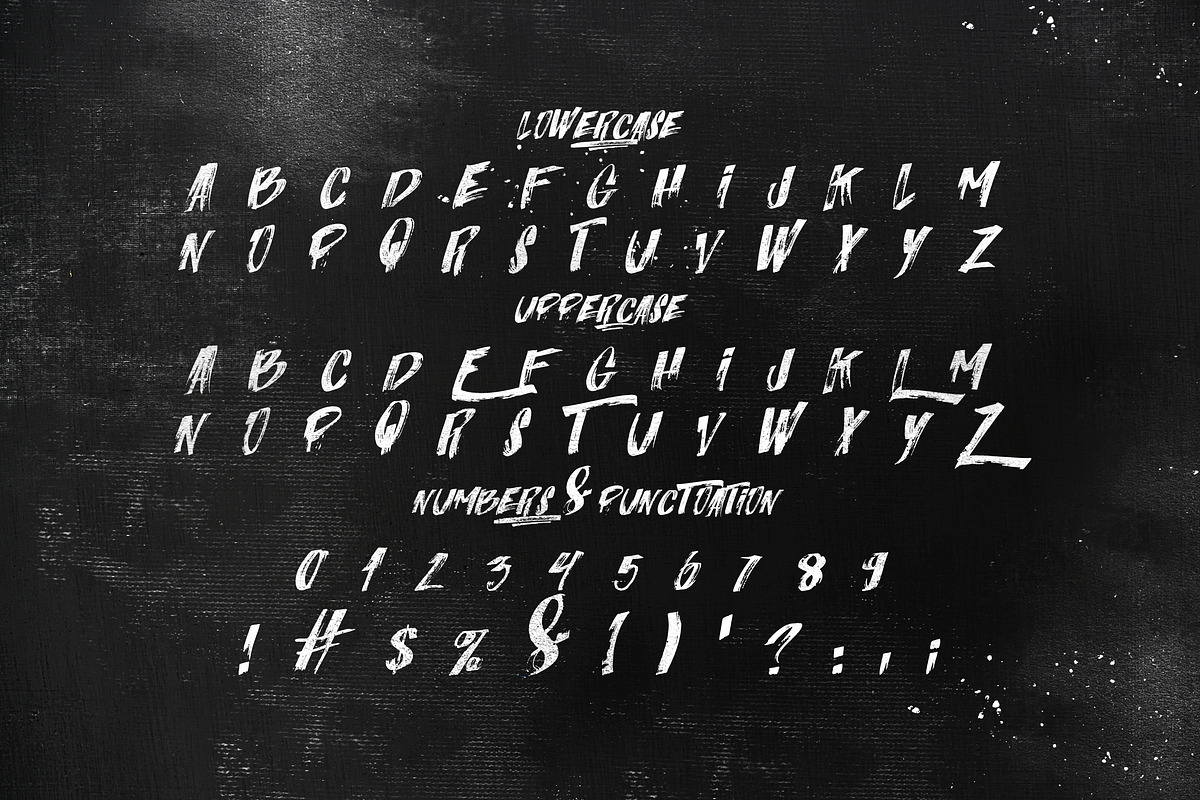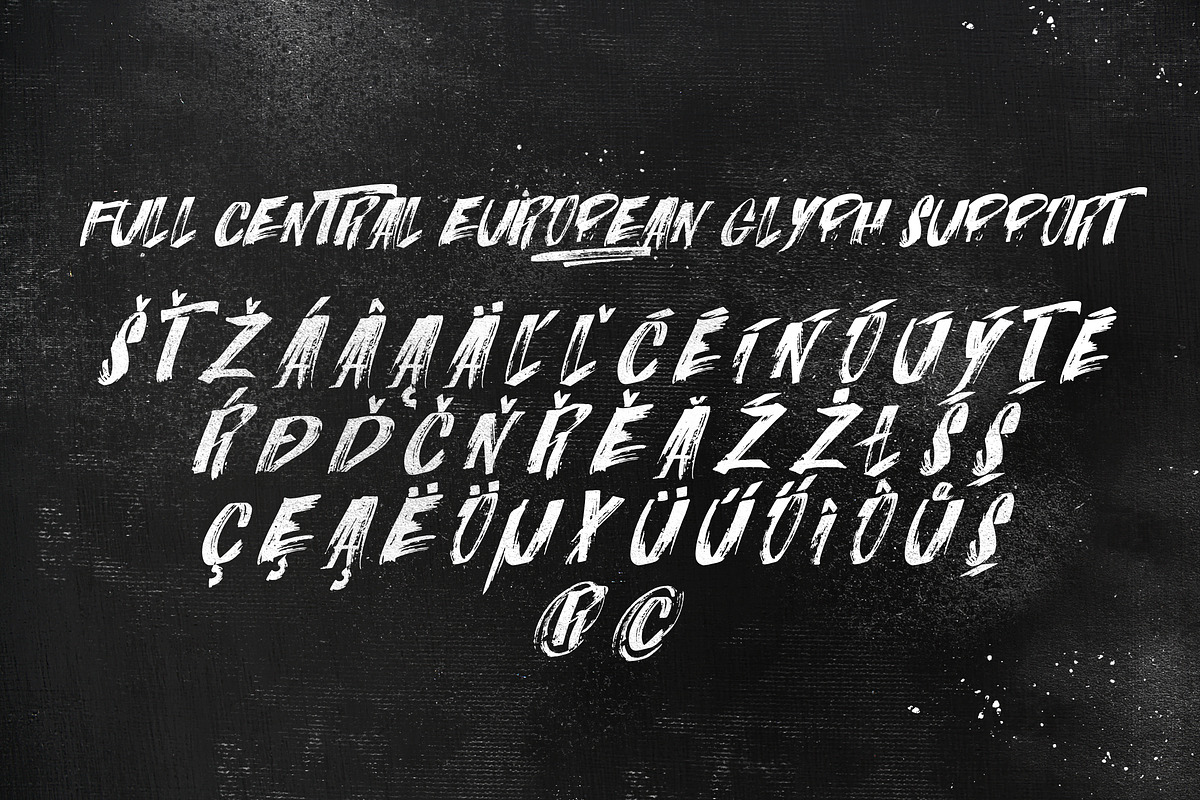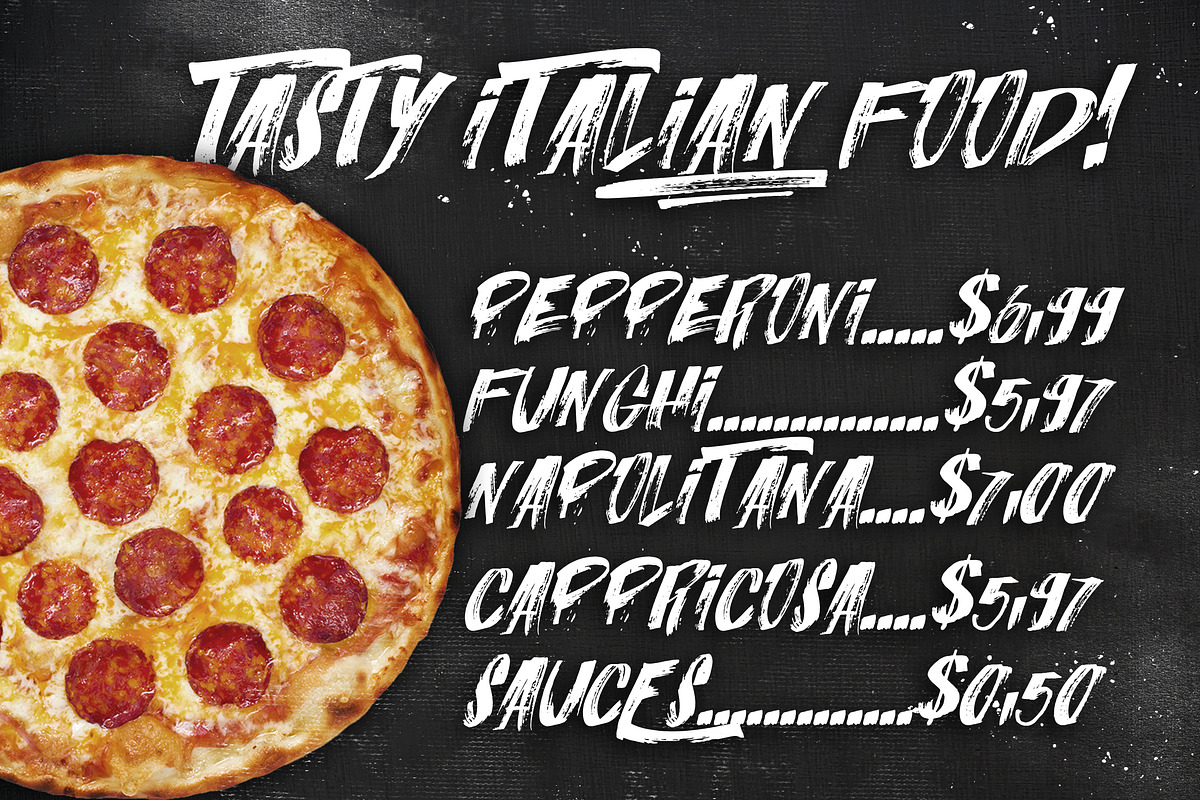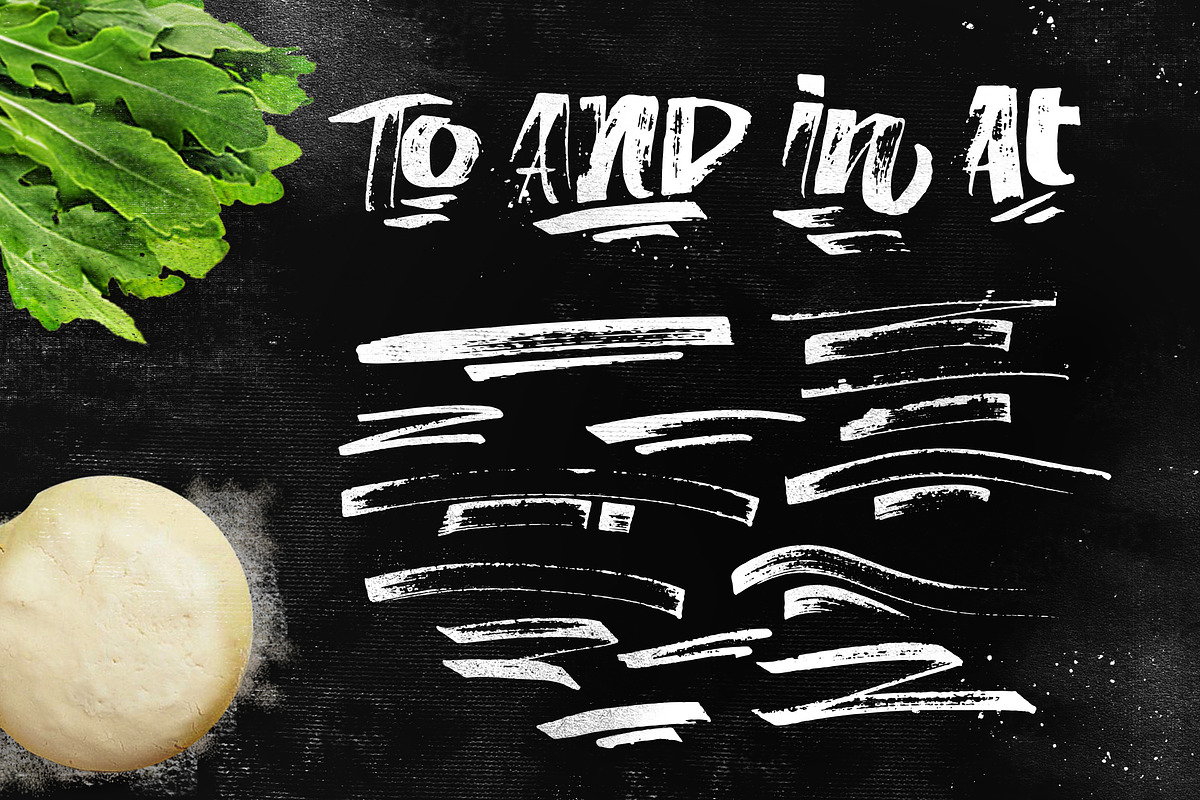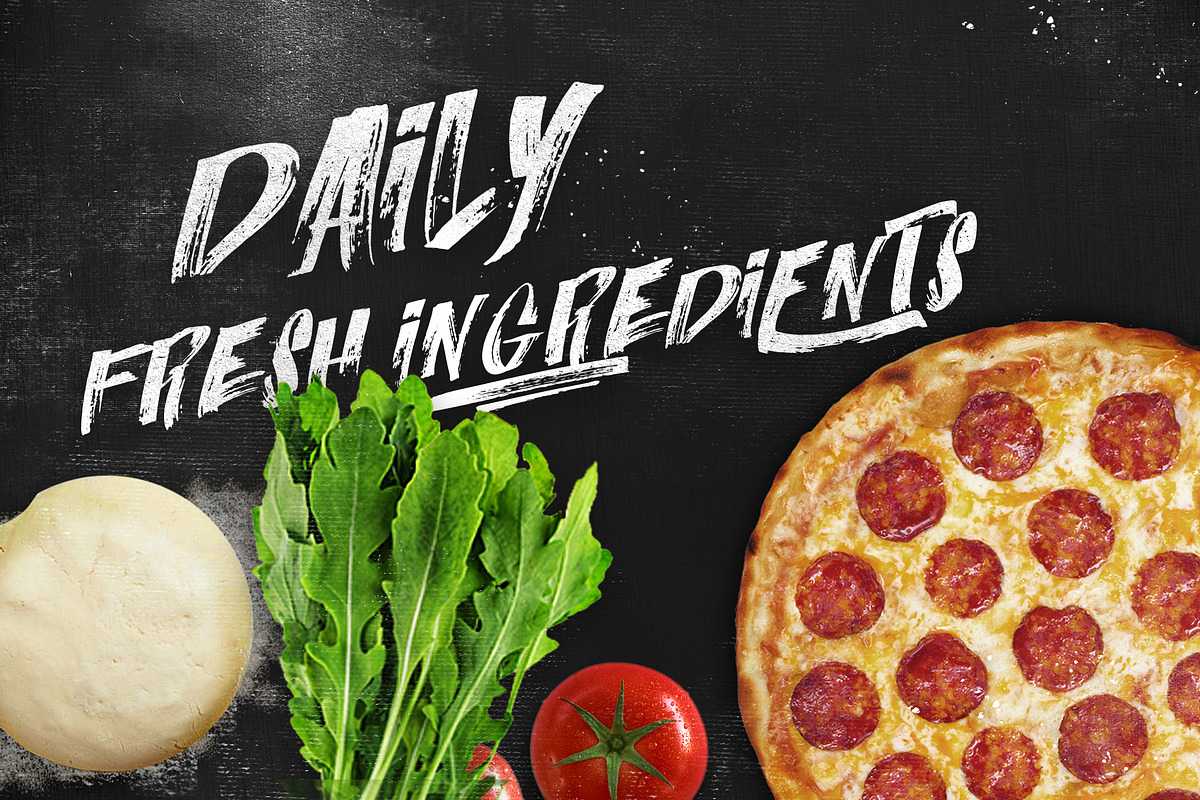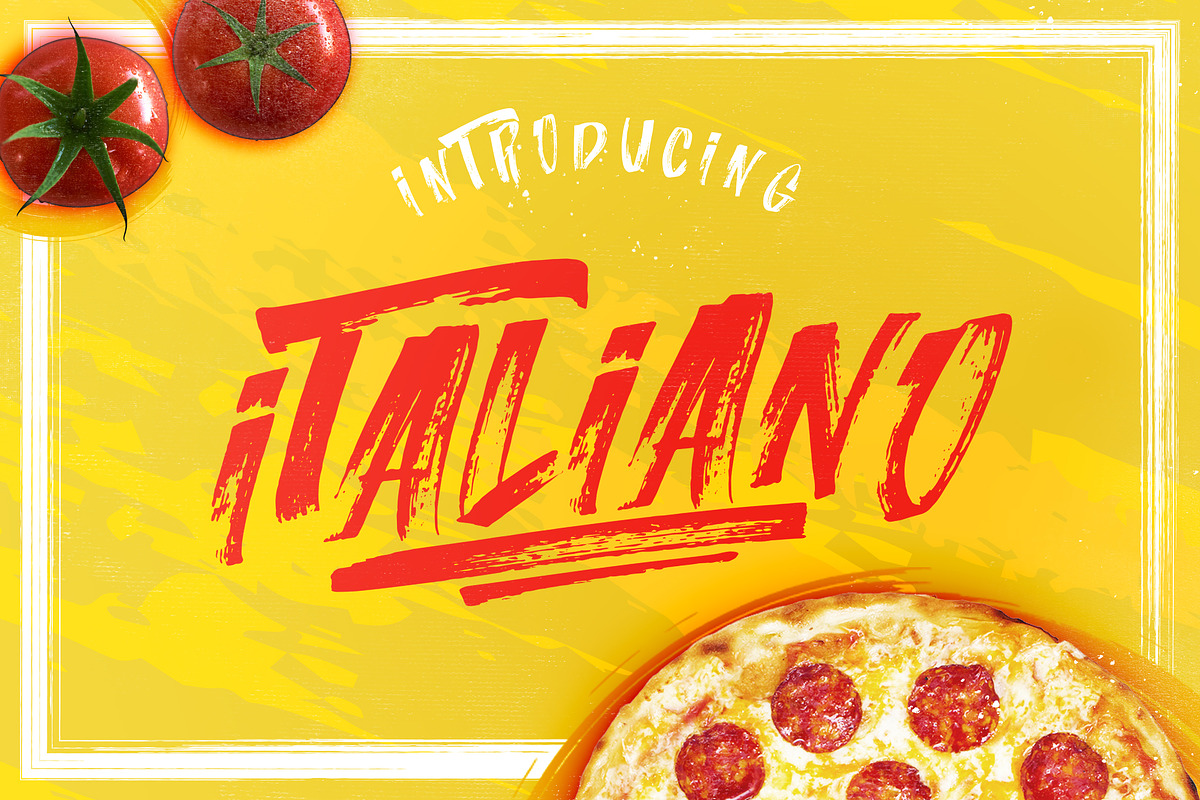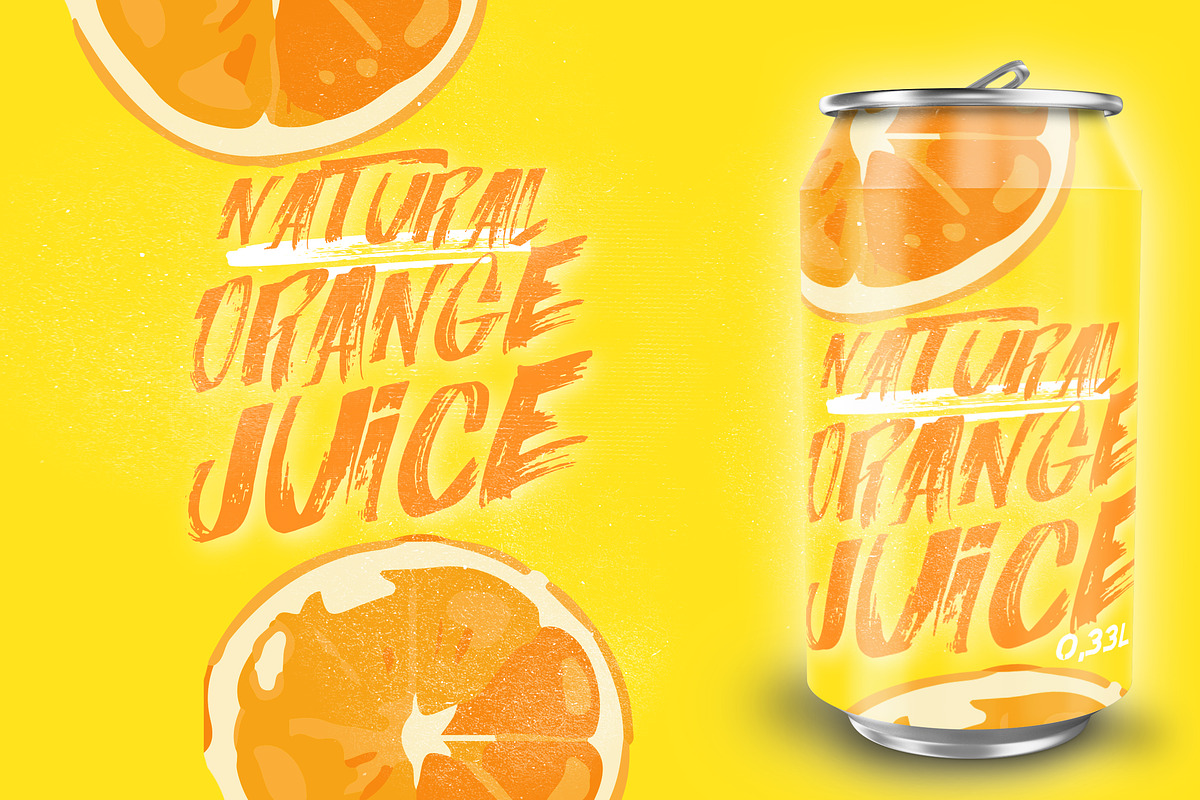
ITALIANO Brush Font +Extras
ITALIANO Brush Font +Extras by LeoSupply.co is a font selected for branding, posters, packaging, typography.
- Files: ITALIANO - Hand brushed font including all uppercase letters which has a complete set of A-Z, and support for whole Central European
- Combinate uppercase and lowercase letters to get interesting text styles.
- ITALIANO SLANT - 18° slant hand brushed font including all uppercase letters which has a complete set of A-Z, and support for whole Central
Why ITALIANO Brush Font +Extras is worth a look
ITALIANO Brush Font +Extras by LeoSupply.co fits naturally into Branding, posters, packaging, typography.